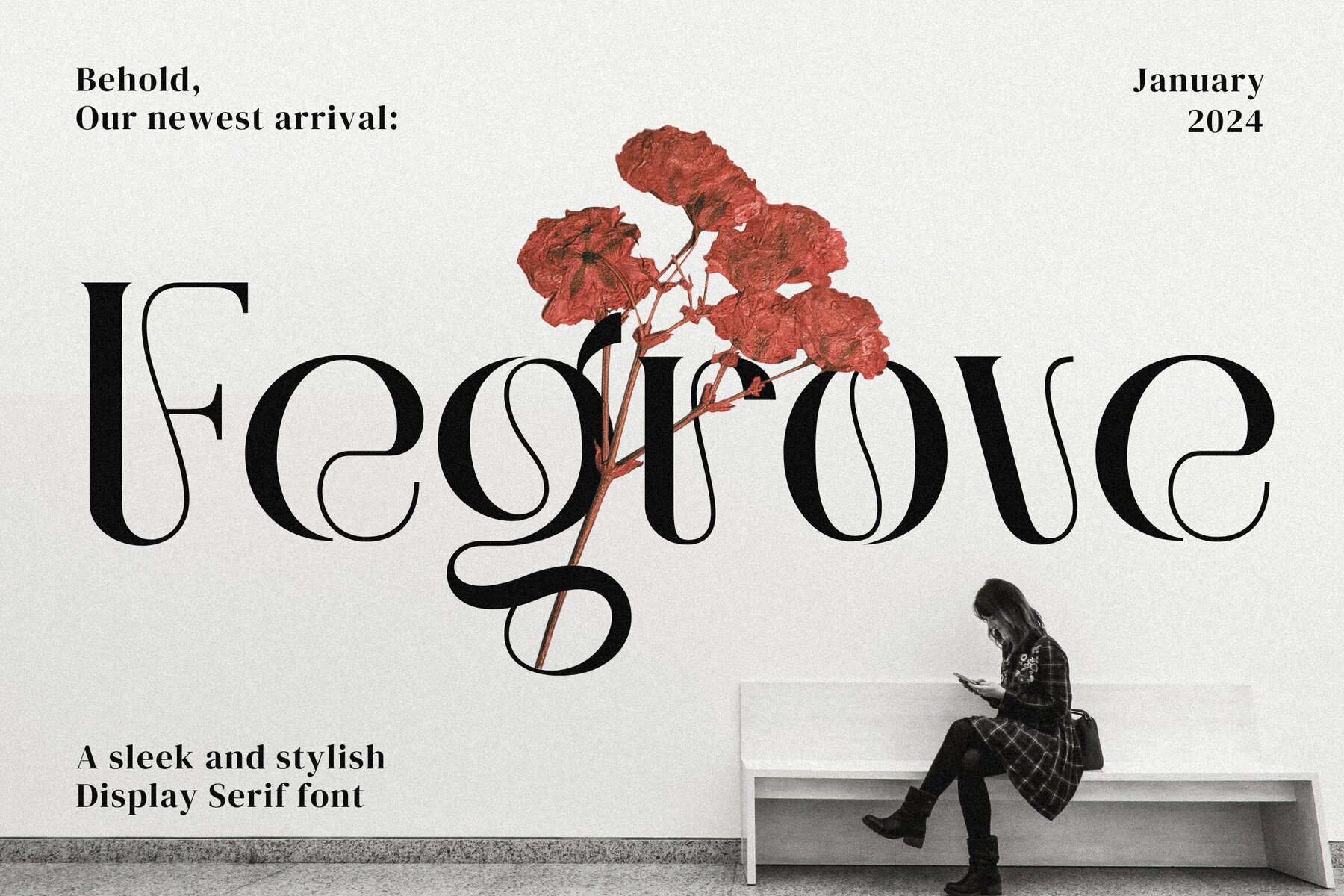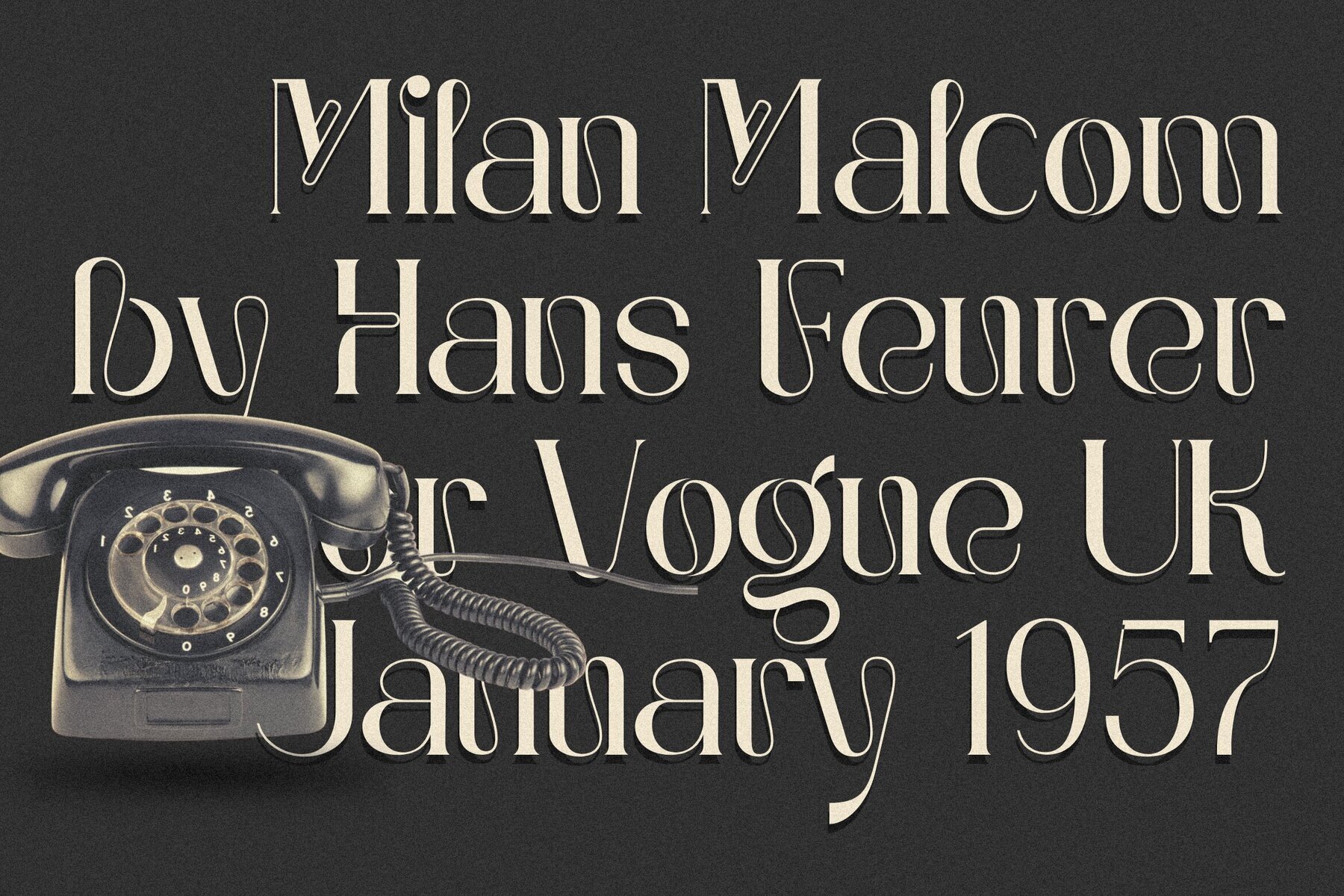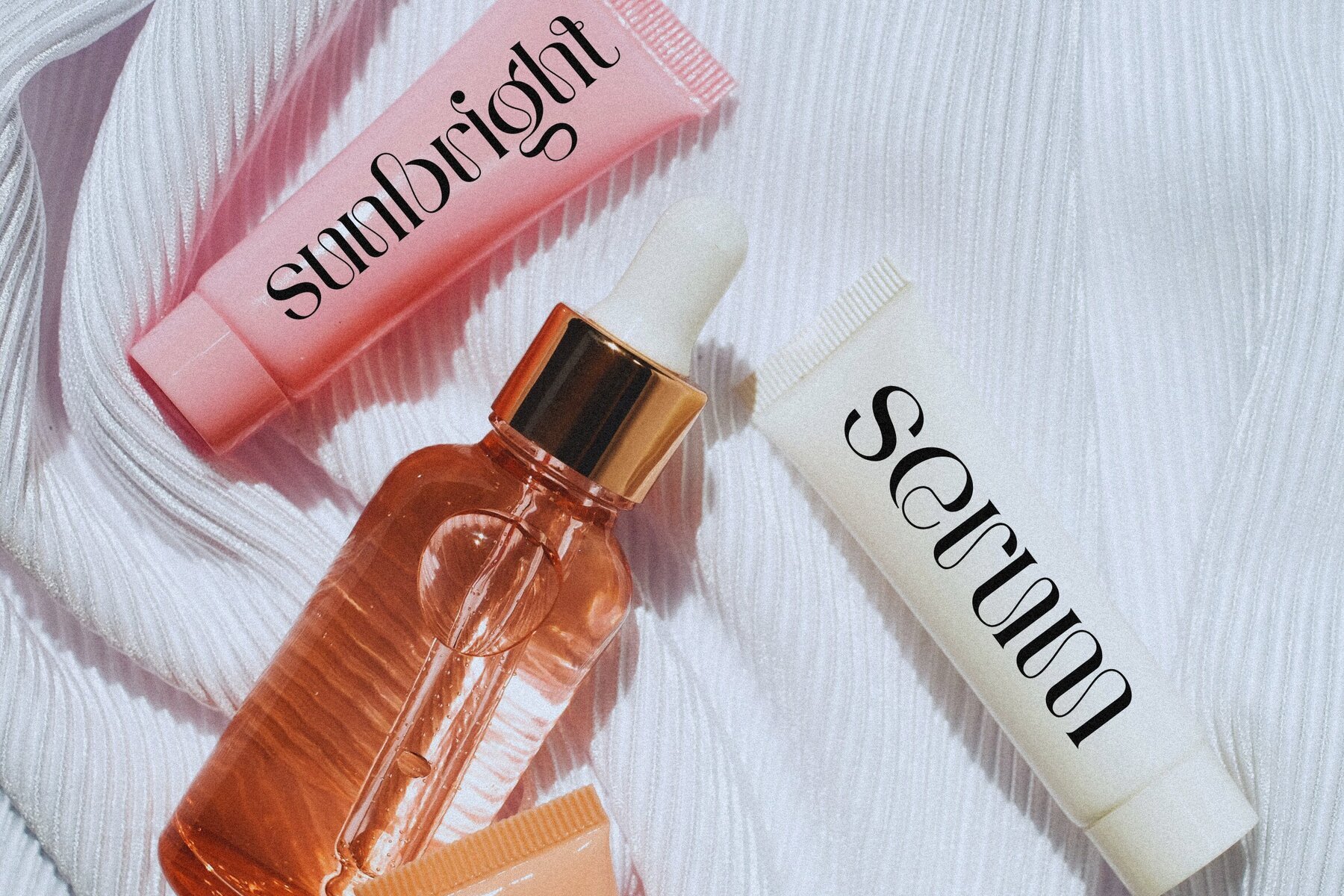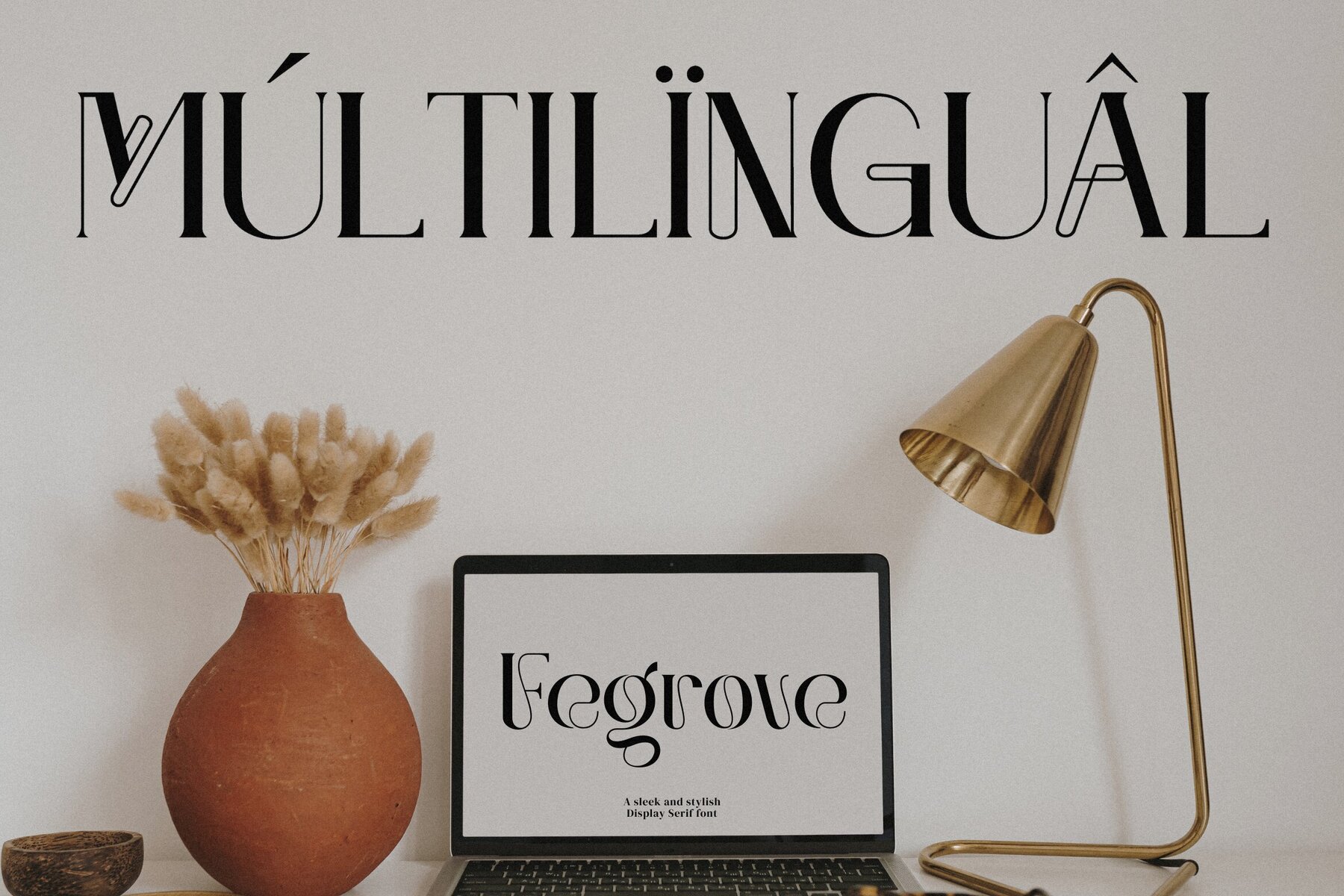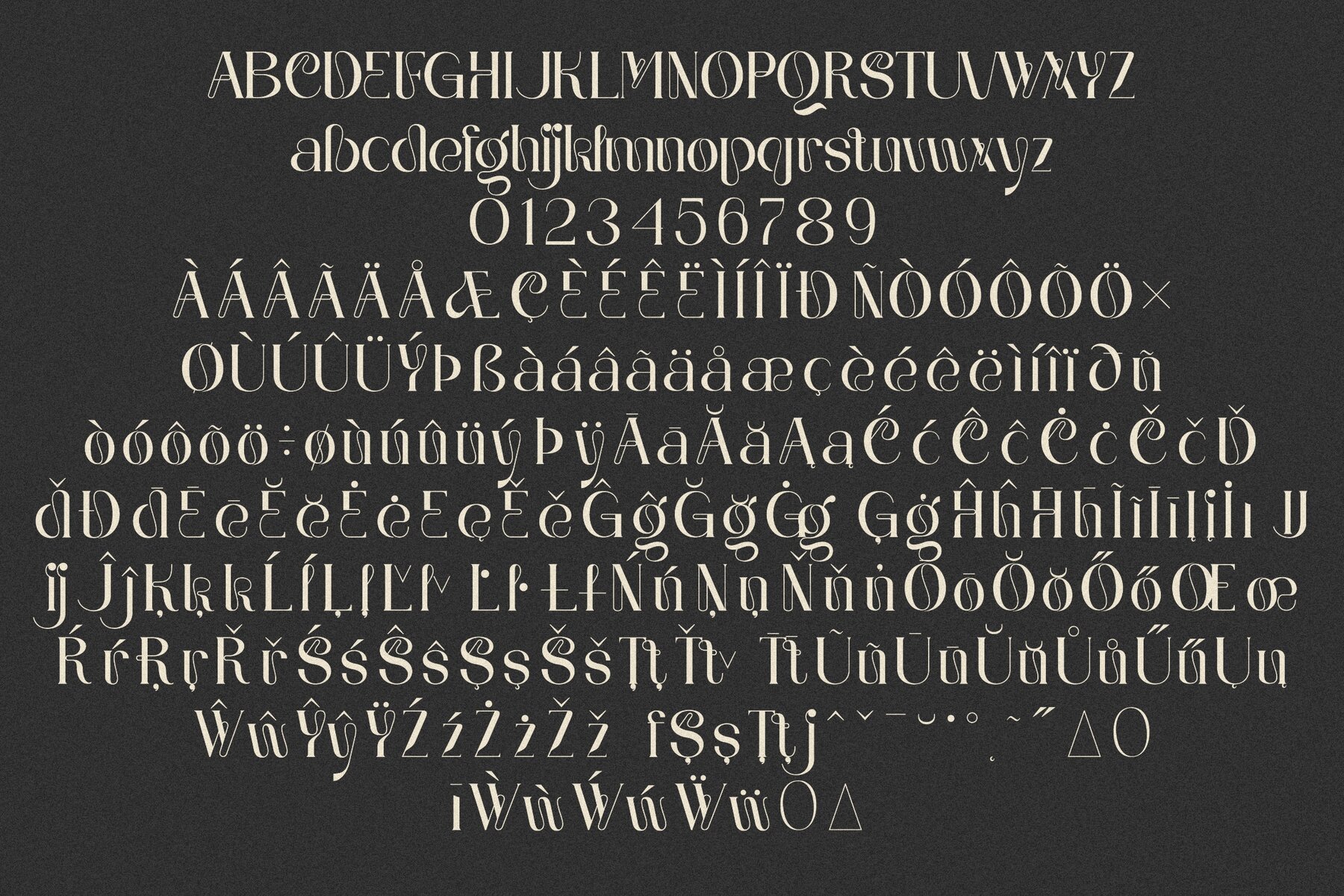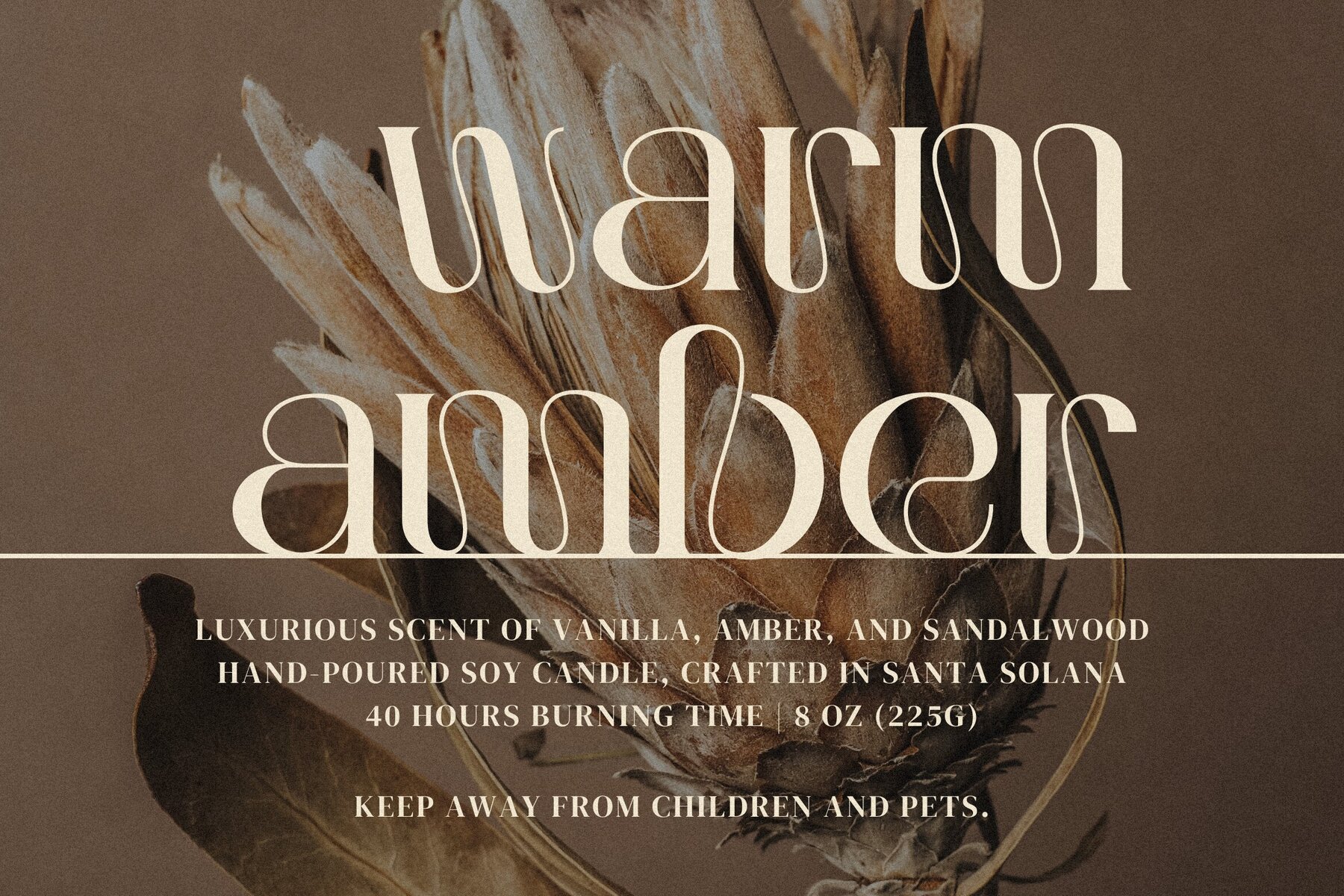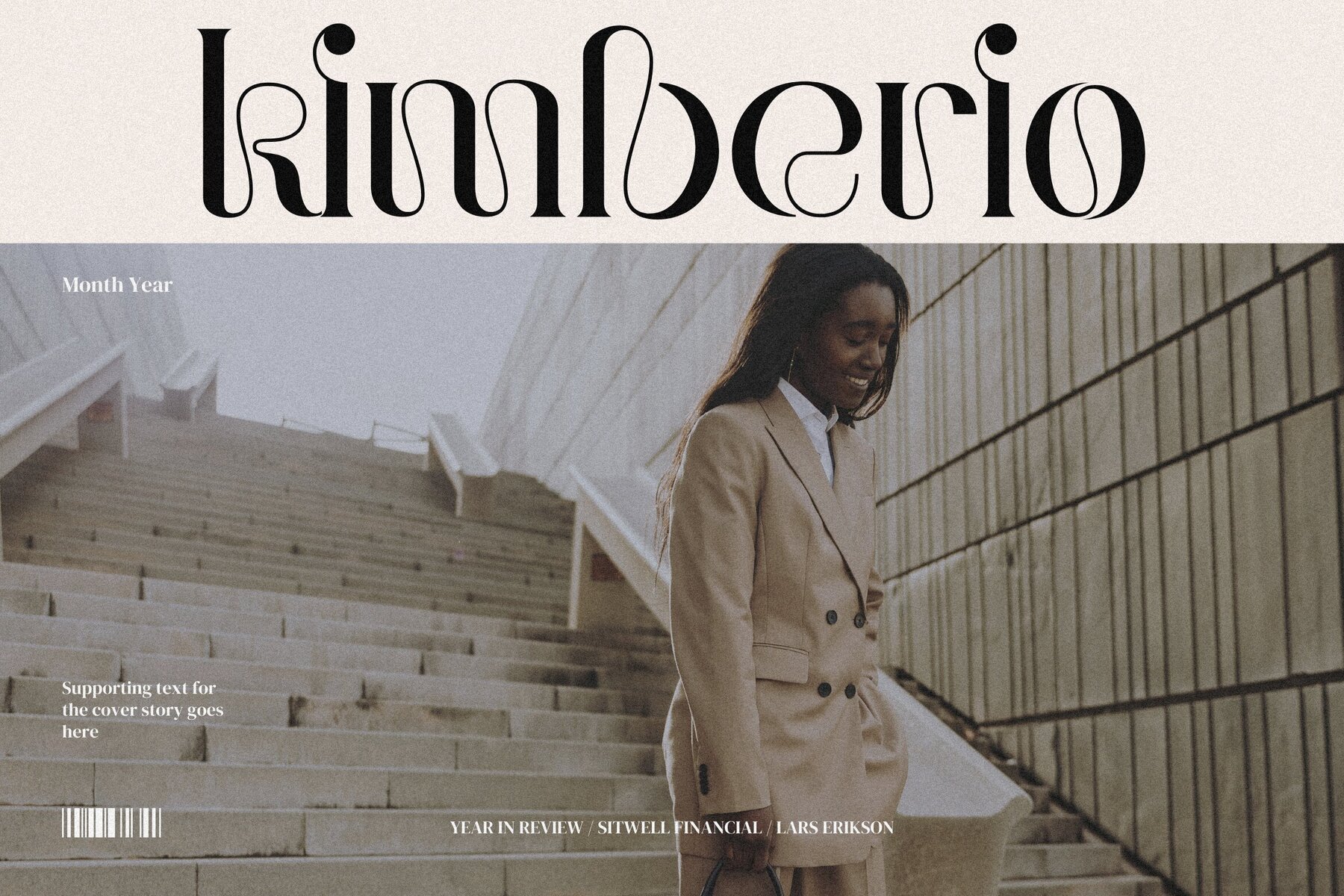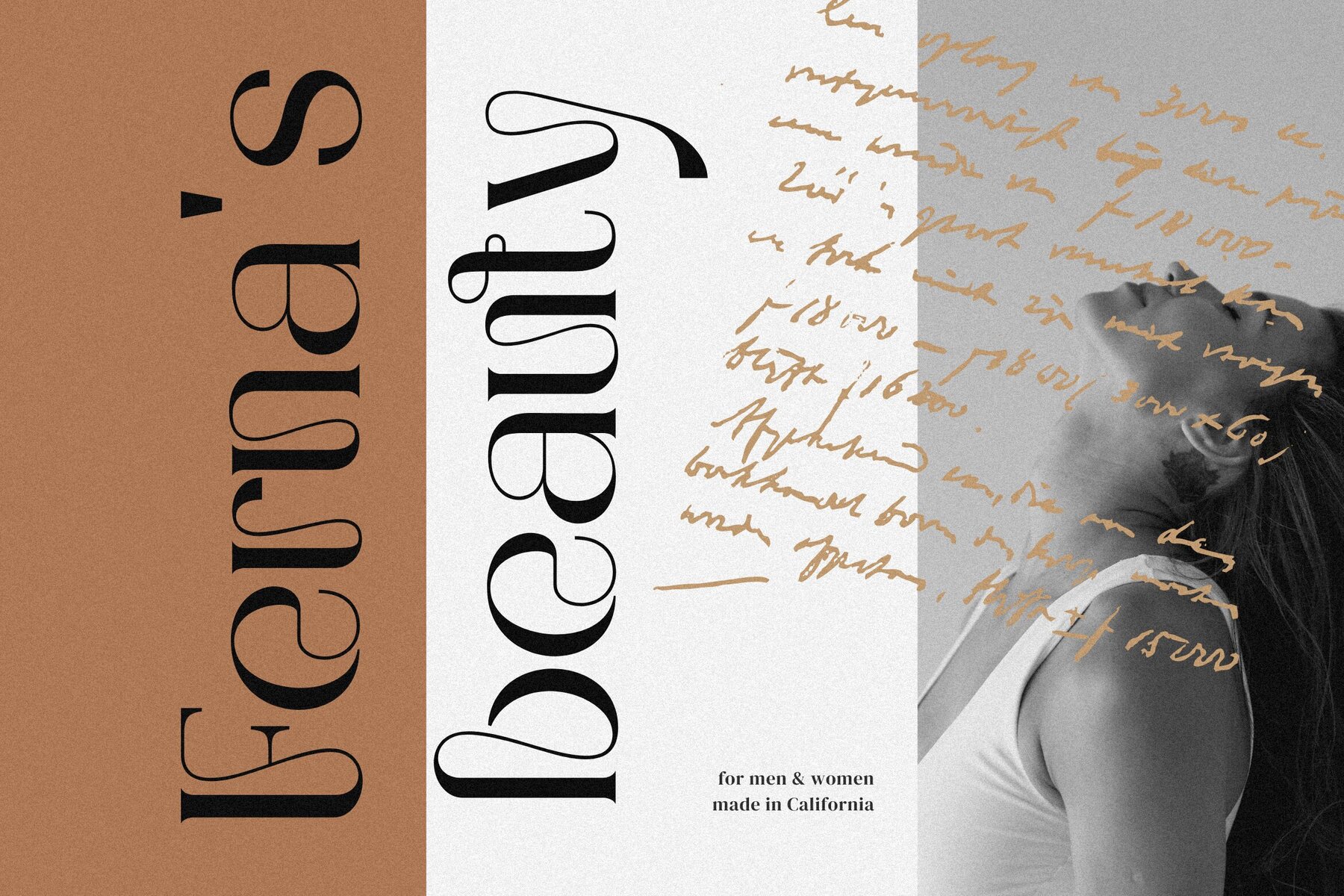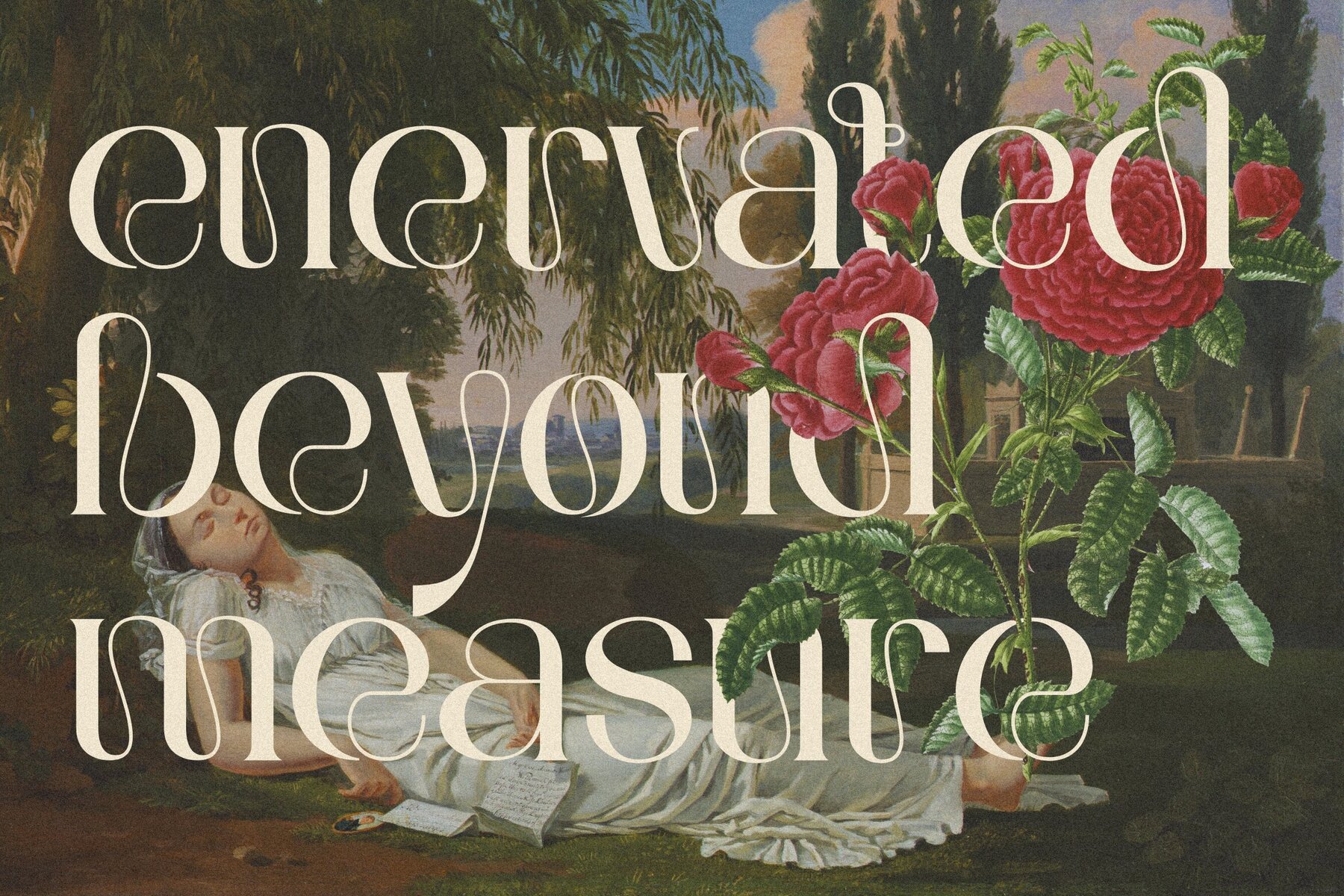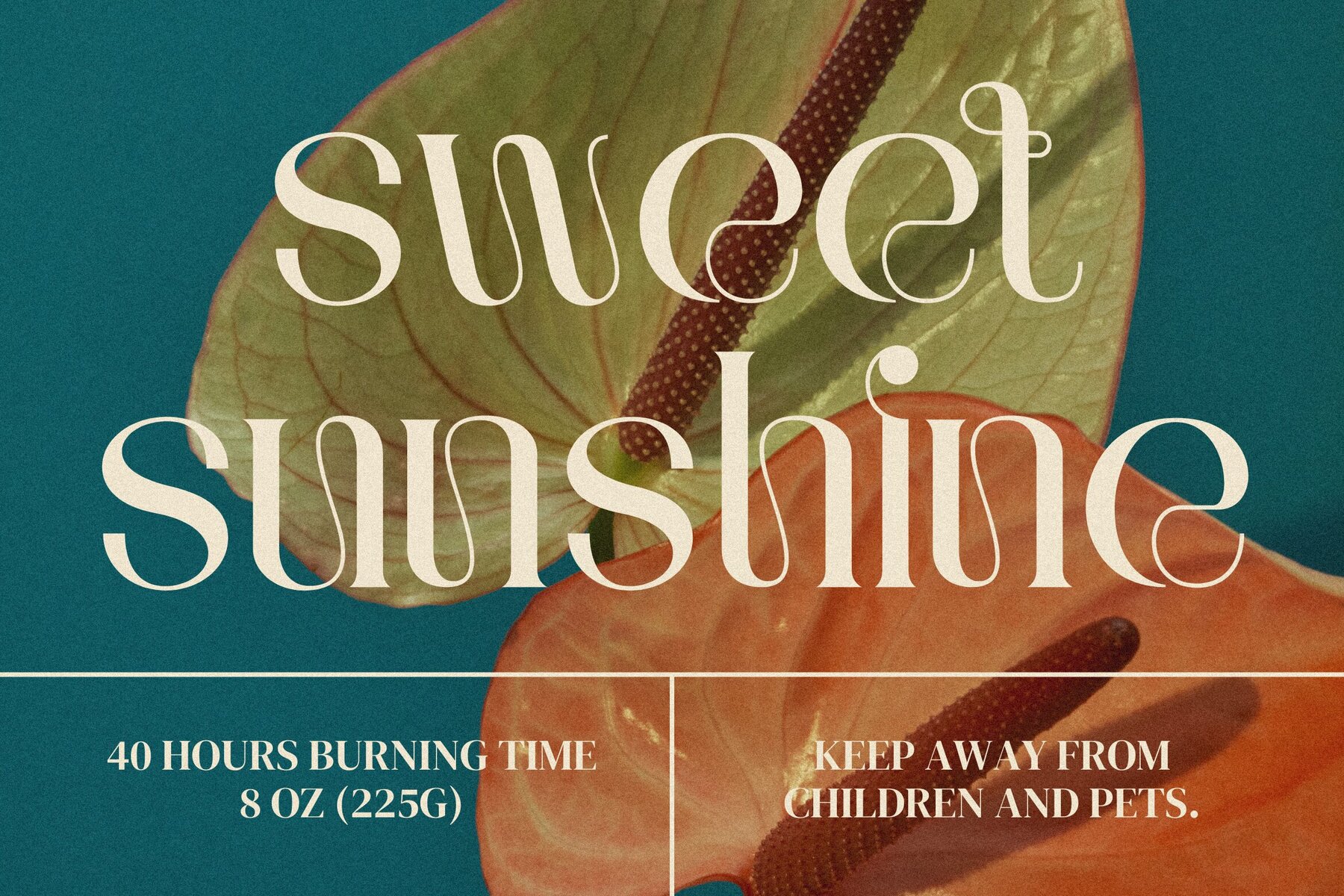
Fegrove Font
Fegrove Regular
Fegrove is a sophisticated and refined display serif font, tailored for projects that demand elegance and class. With its sleek lines and graceful curves, Fegrove is designed to capture attention, adding a touch of exclusivity to any design. Ideal for luxury brand identities, high-end fashion editorials, and upscale event invitations, this font brings a timeless elegance to your work.
The font's features include uppercase, lowercase, numerals, punctuation, and multilingual support, ensuring versatility across various projects. Fegrove seamlessly transitions from bold headlines to delicate details, with each letter meticulously crafted for balance and harmony. This font embodies refined beauty and professionalism, making it an excellent choice for designers seeking a font that speaks of taste and attention to detail. Fegrove is not merely a font; it's a definitive statement in the realm of stylish display serif fonts.